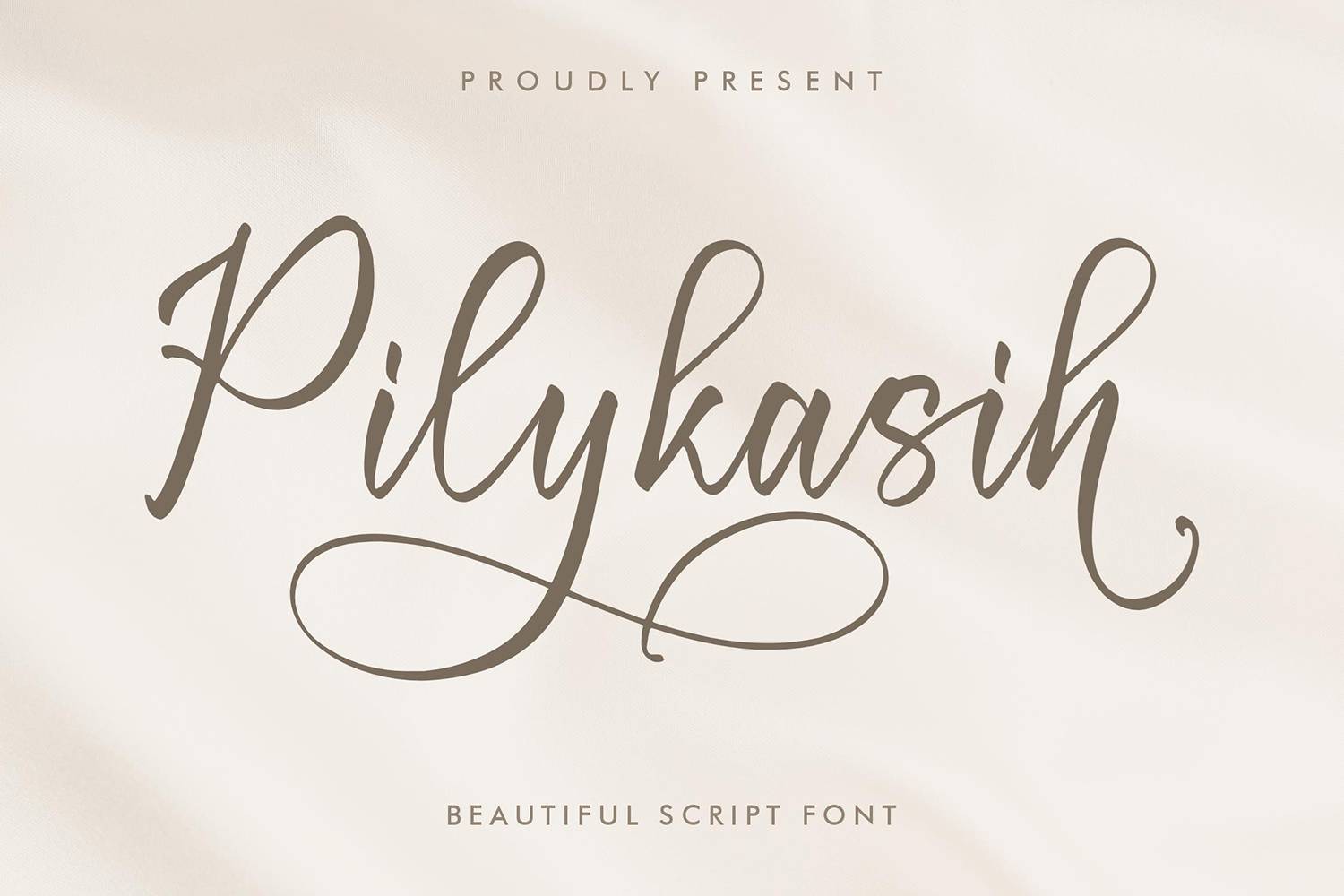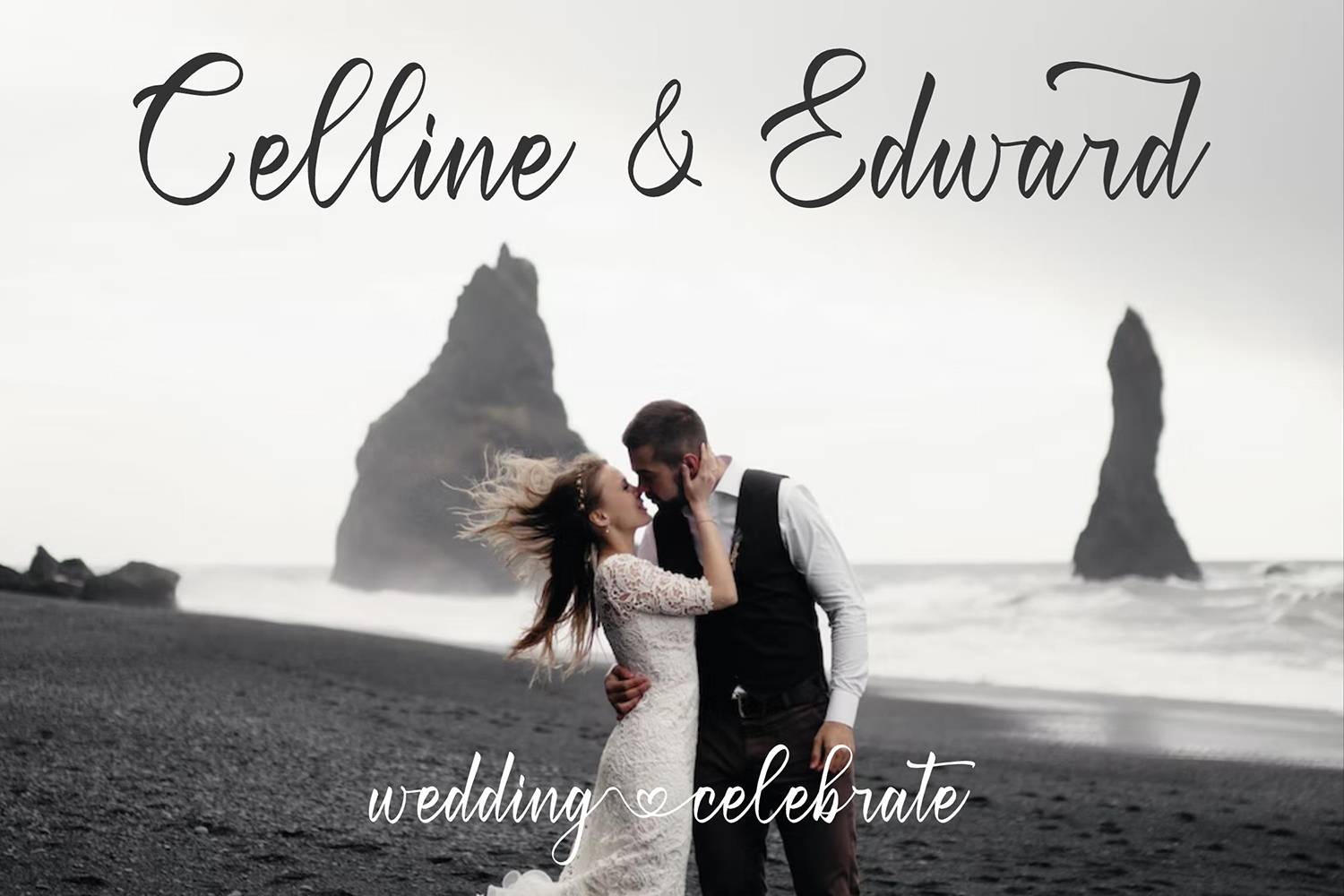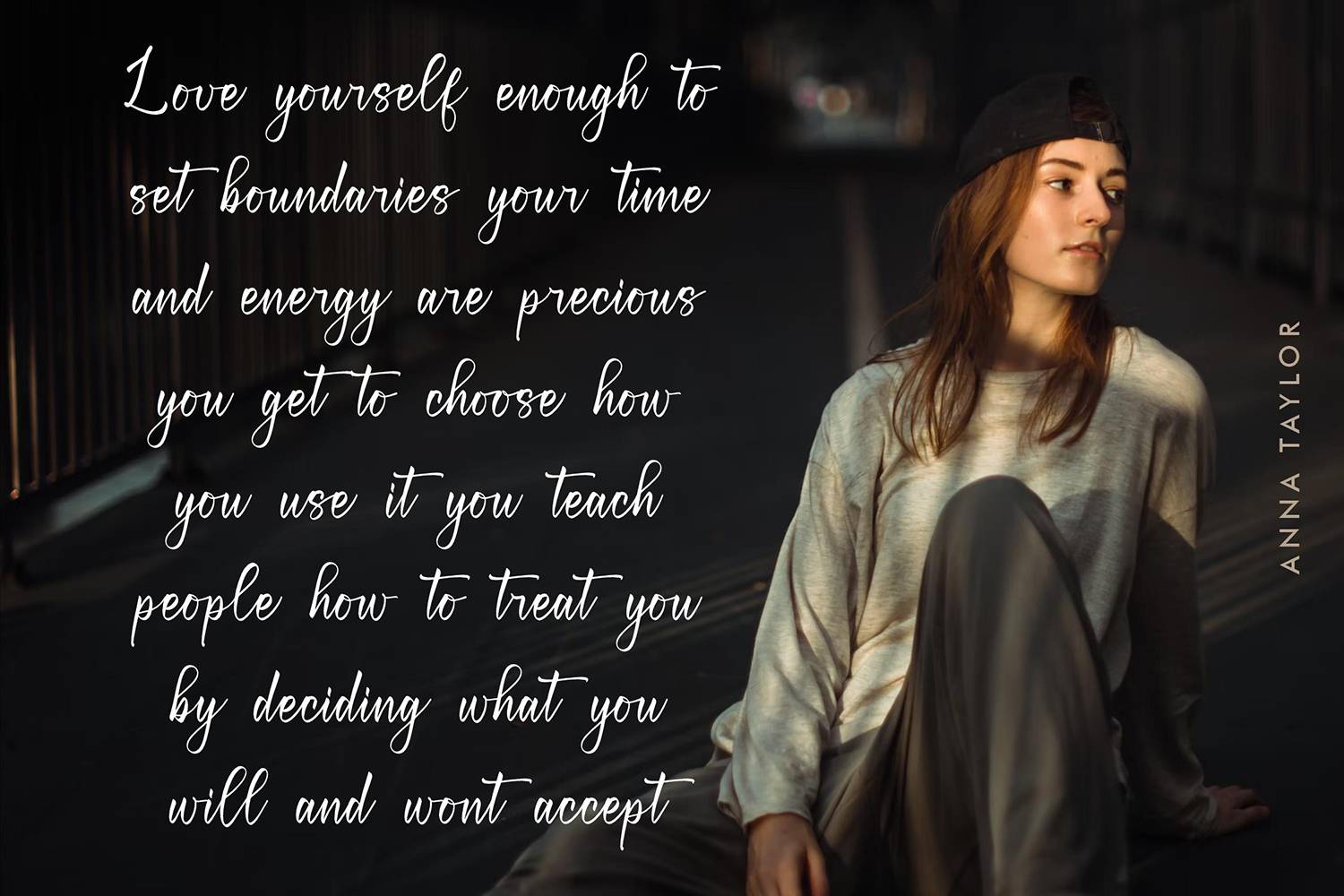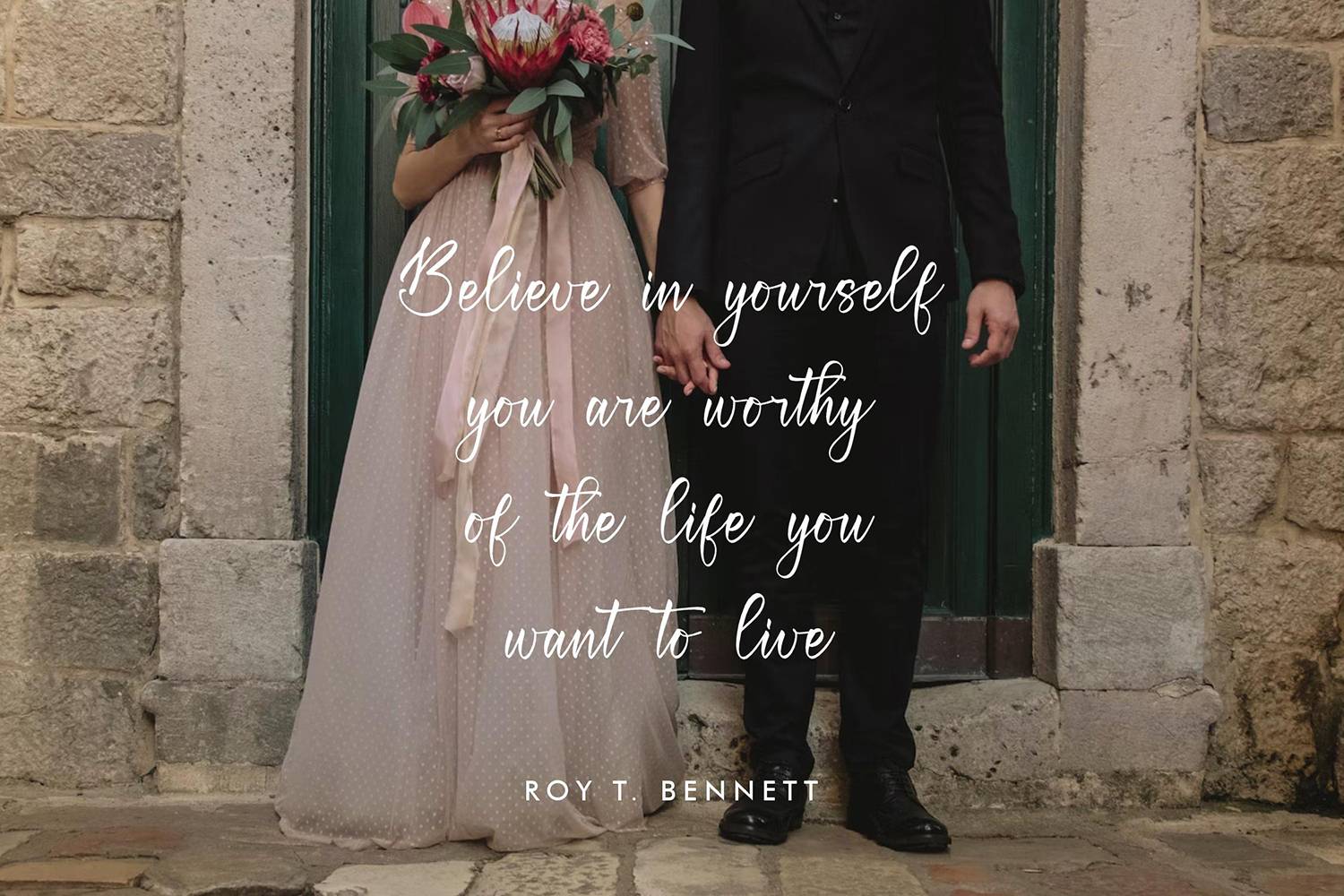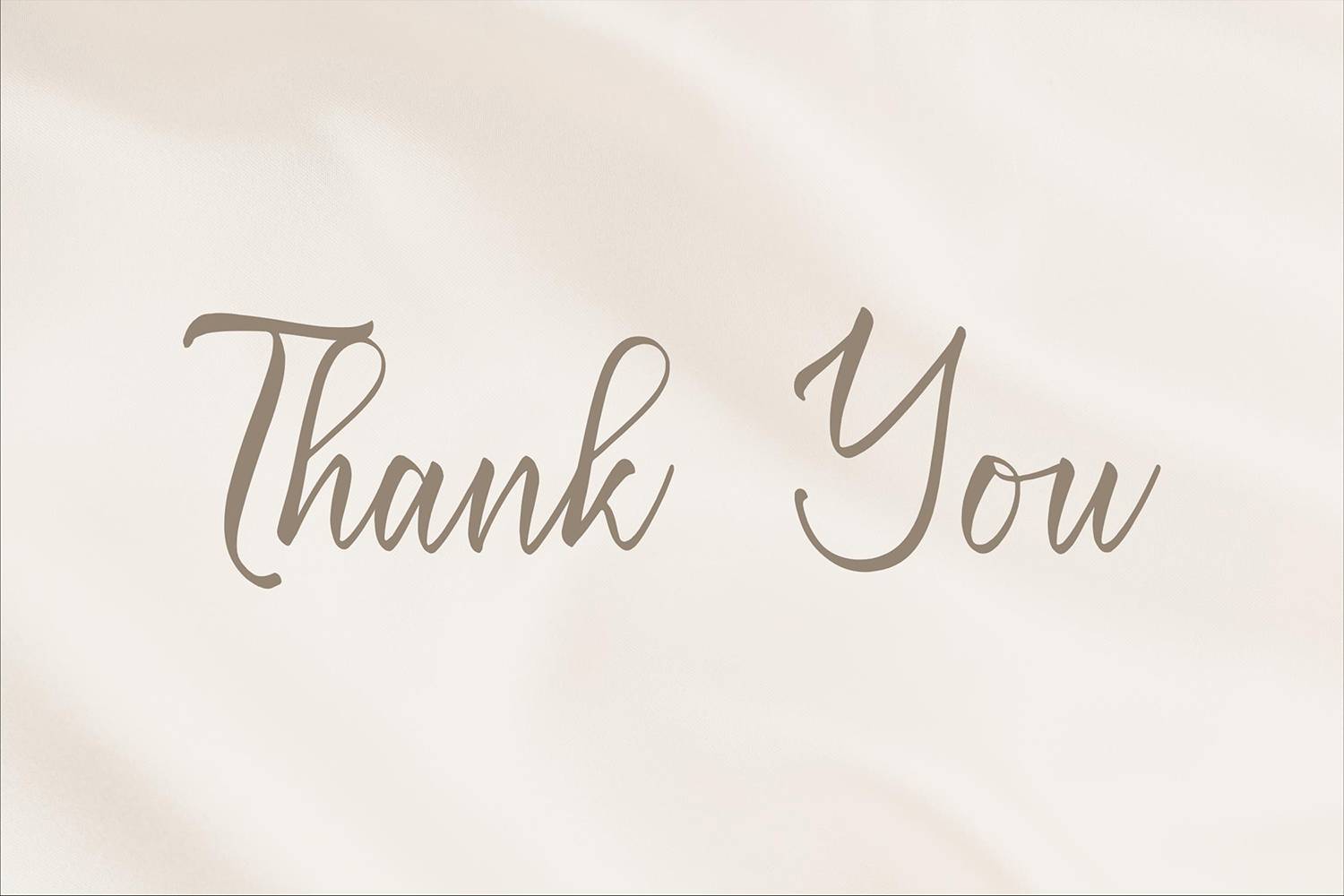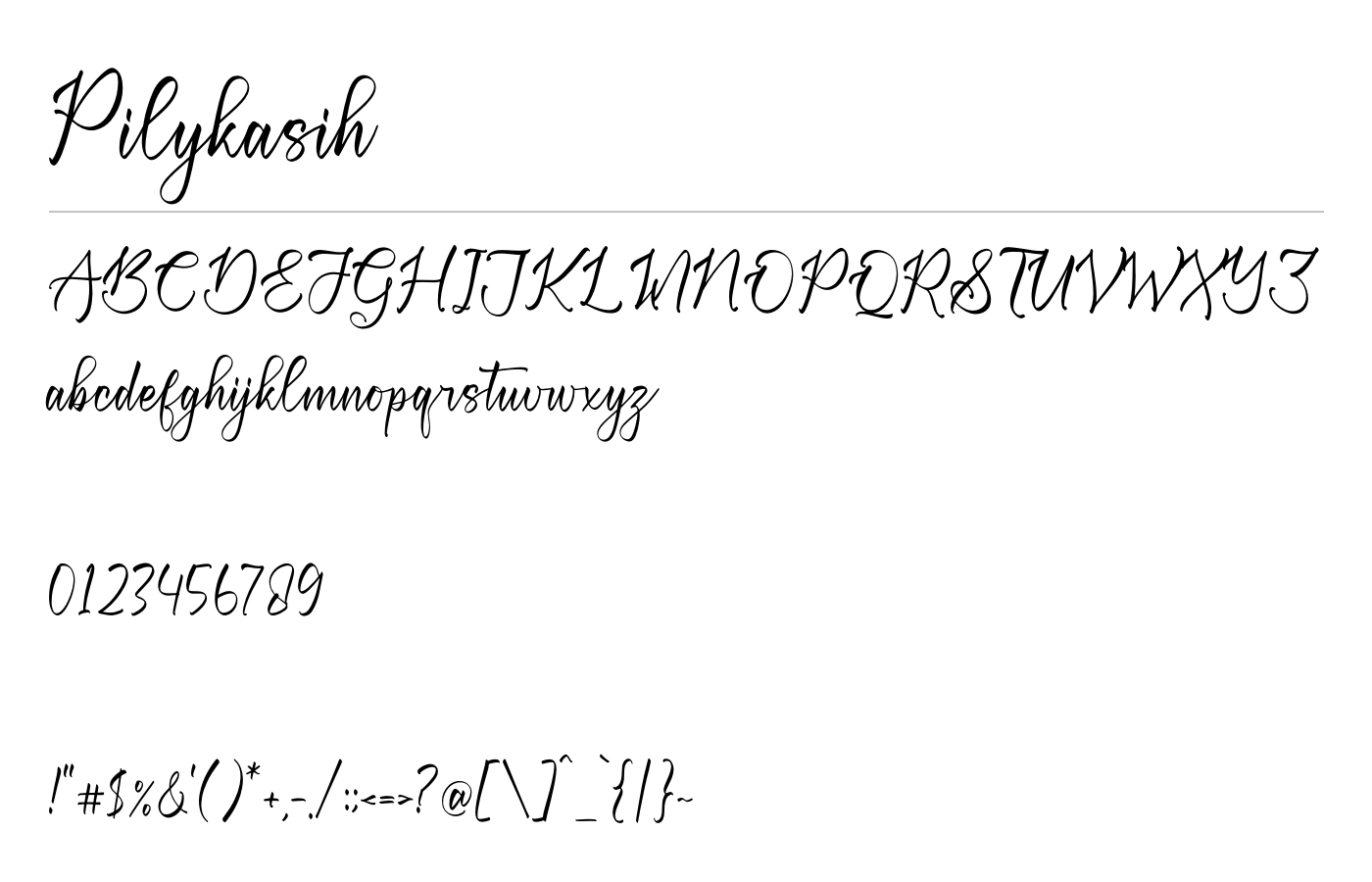
Pilykasih is a delicate, elegant script font with slender, flowing strokes that give it a refined and graceful personality. Its light weight and moderately tall x-height create a sense of airy sophistication, making it ideal for invitations, branding, and luxury packaging where a personal, artistic touch is desired. This font is perfect for projects that seek to convey warmth, elegance, and a handmade feel while maintaining readability in headlines and decorative text.
Pilykasih Font
About Pilykasih Font